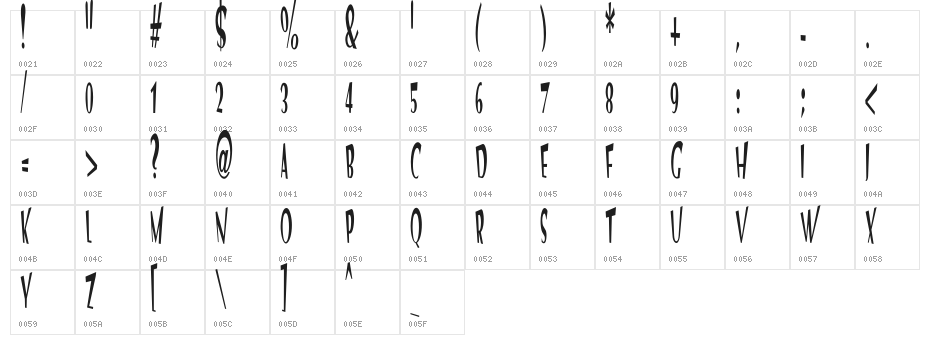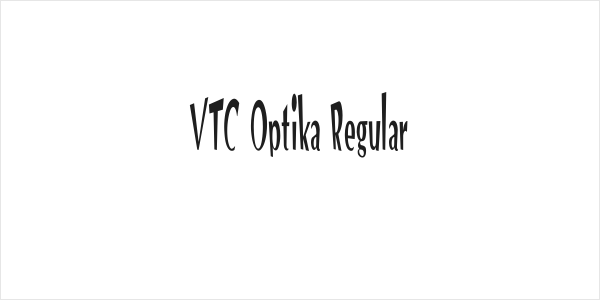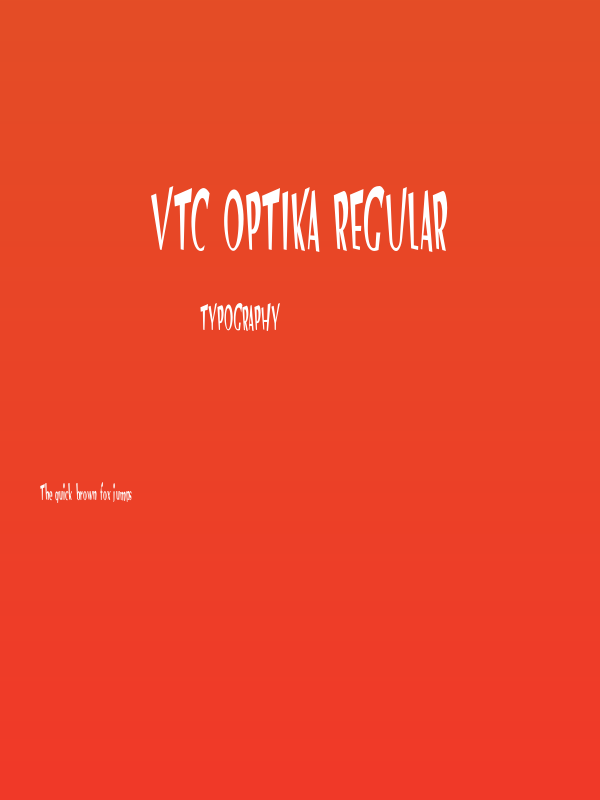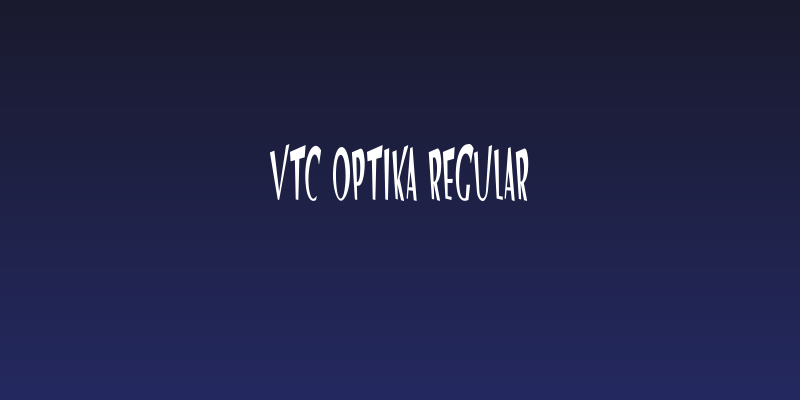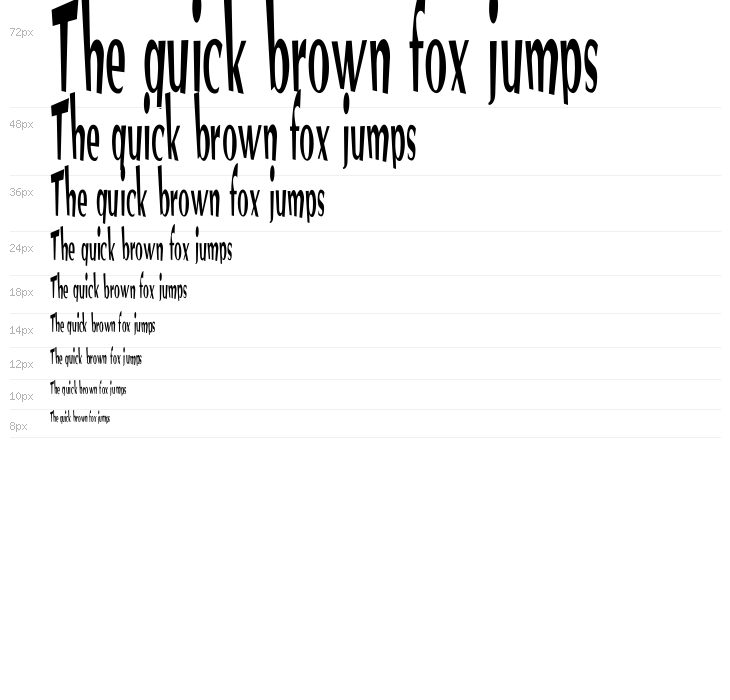
VTC Optika Regular Font
VTC Optika Regular Description
This font features a unique and dynamic style with a strong visual impact. The characters are tall and narrow, creating a condensed appearance that is both modern and eye-catching. The uppercase letters exhibit a bold and angular design, while the lowercase letters maintain a consistent and cohesive look. The numbers and special characters are designed to complement the overall aesthetic, with a distinctive flair that adds to the font's personality. The font's high contrast in stroke thickness enhances its readability and makes it suitable for various design applications.
| Proposed Projects | Ideal for posters, headlines, branding, and any project requiring a striking and modern typeface. |